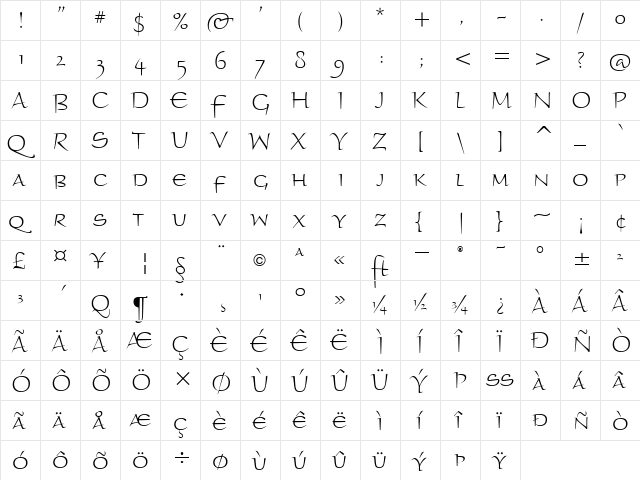
Braganza SC ITC Regular Font Preview
Braganza SC ITC Regular
Braganza SC ITC Regular Font Details
| Foundry | International Typeface Corporation |
Design Context for Braganza SC ITC Typeface
Braganza SC ITC takes a measured approach to typography — its balanced proportions and neutral character make it a reliable workhorse for both digital and print work.